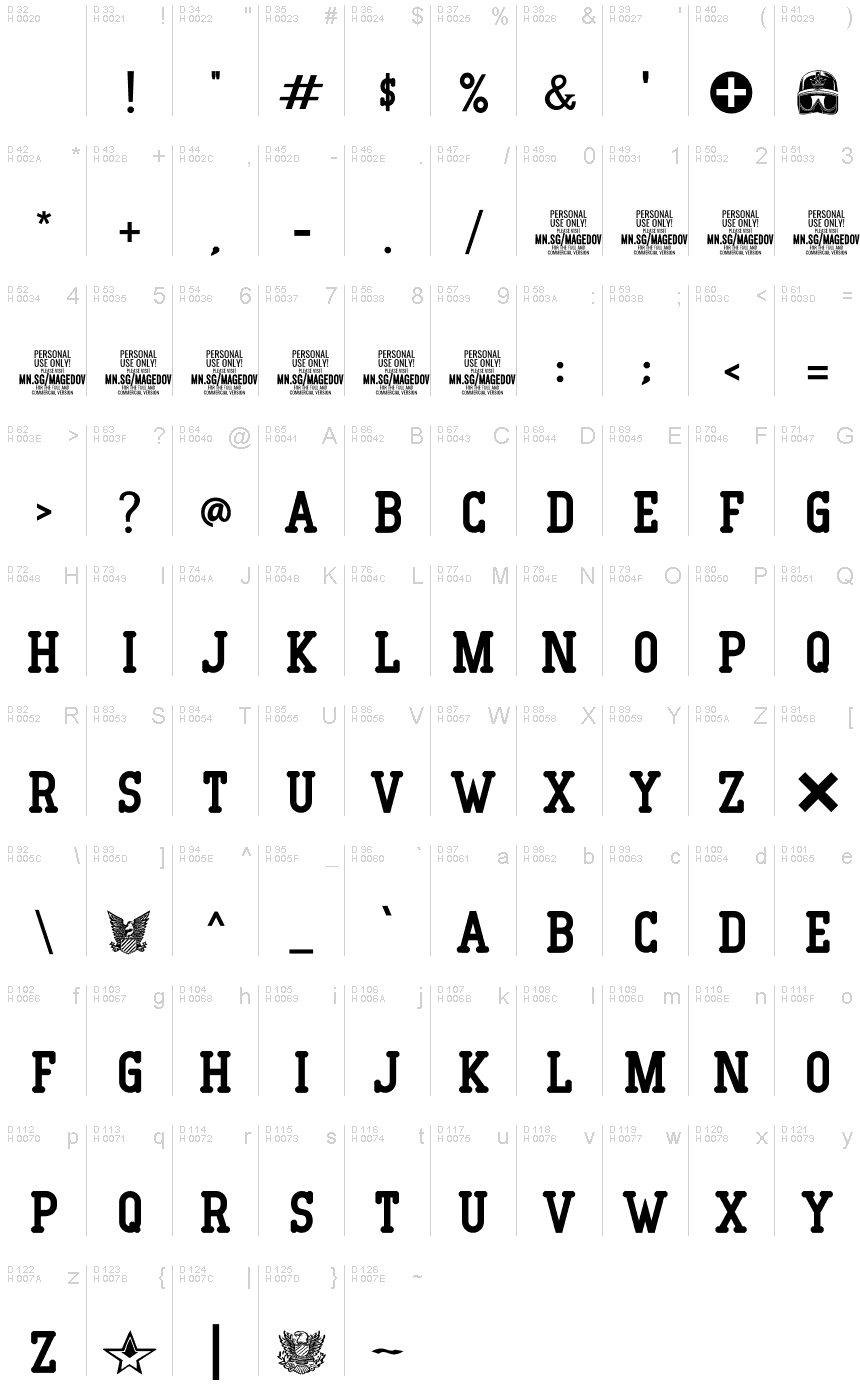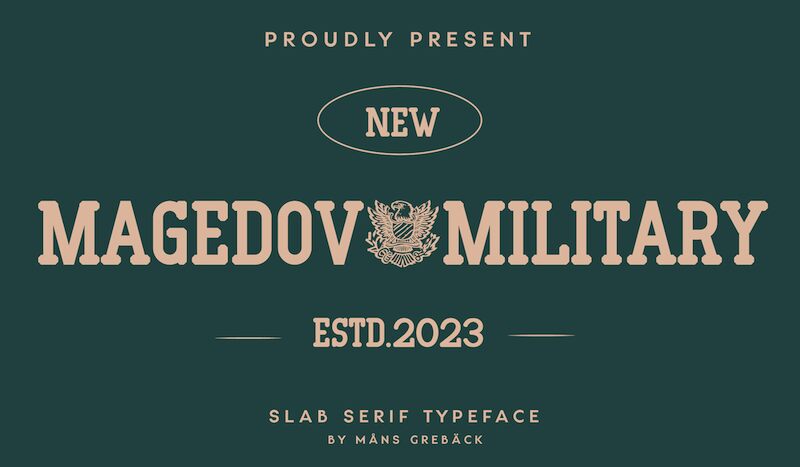
Mans Greback's Magedov Military is a striking semi-bold serif font that demands attention. Its condensed width makes it perfect for military-themed projects, such as posters, logos, and designs for tactical gear. The sharp angles of the serifs give it a powerful and commanding presence while still maintaining legibility. However, its unique style also makes it suitable for more creative projects such as book covers or movie titles that require a bold and edgy aesthetic. With Magedov Military, your designs will never be overlooked or forgotten.
Use the parenthesis symbols ( ) [ ] { } to make decorative elements.
Example: United]States